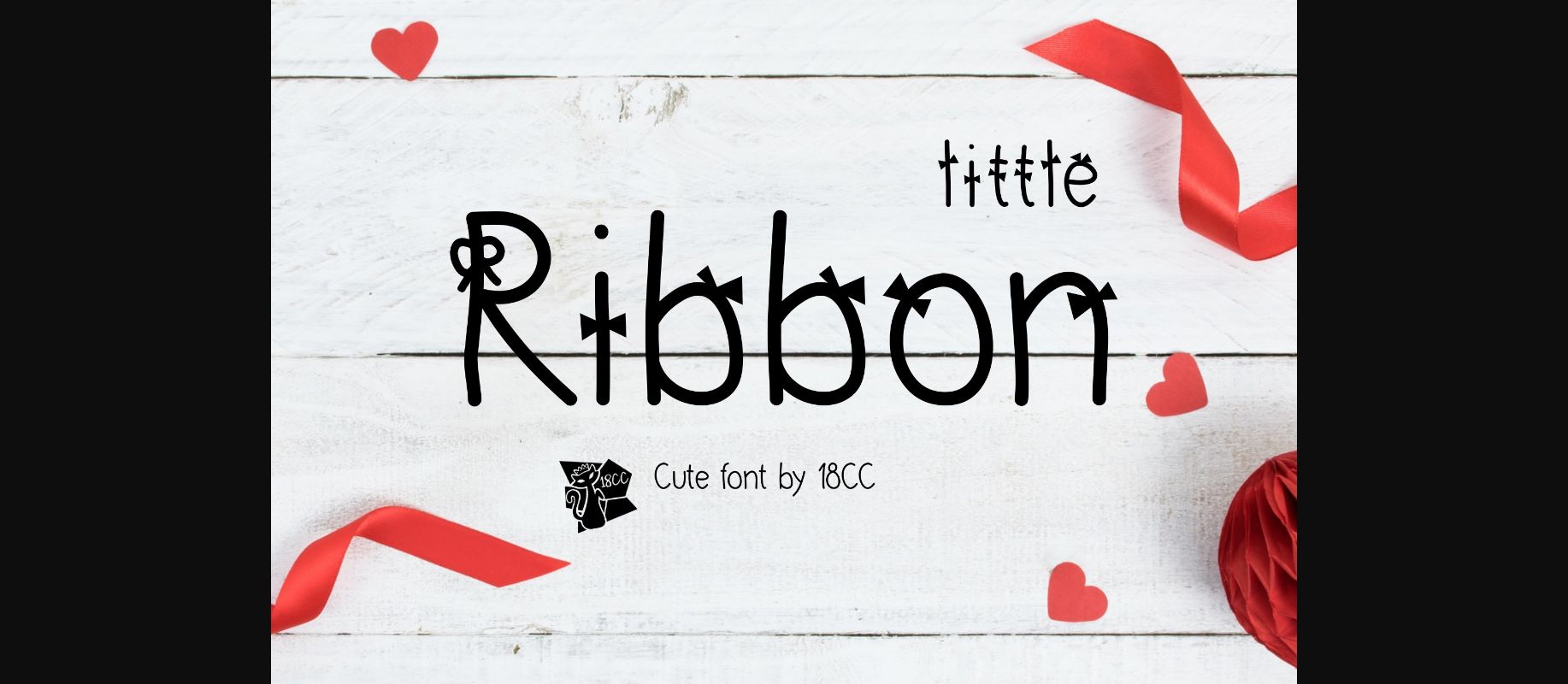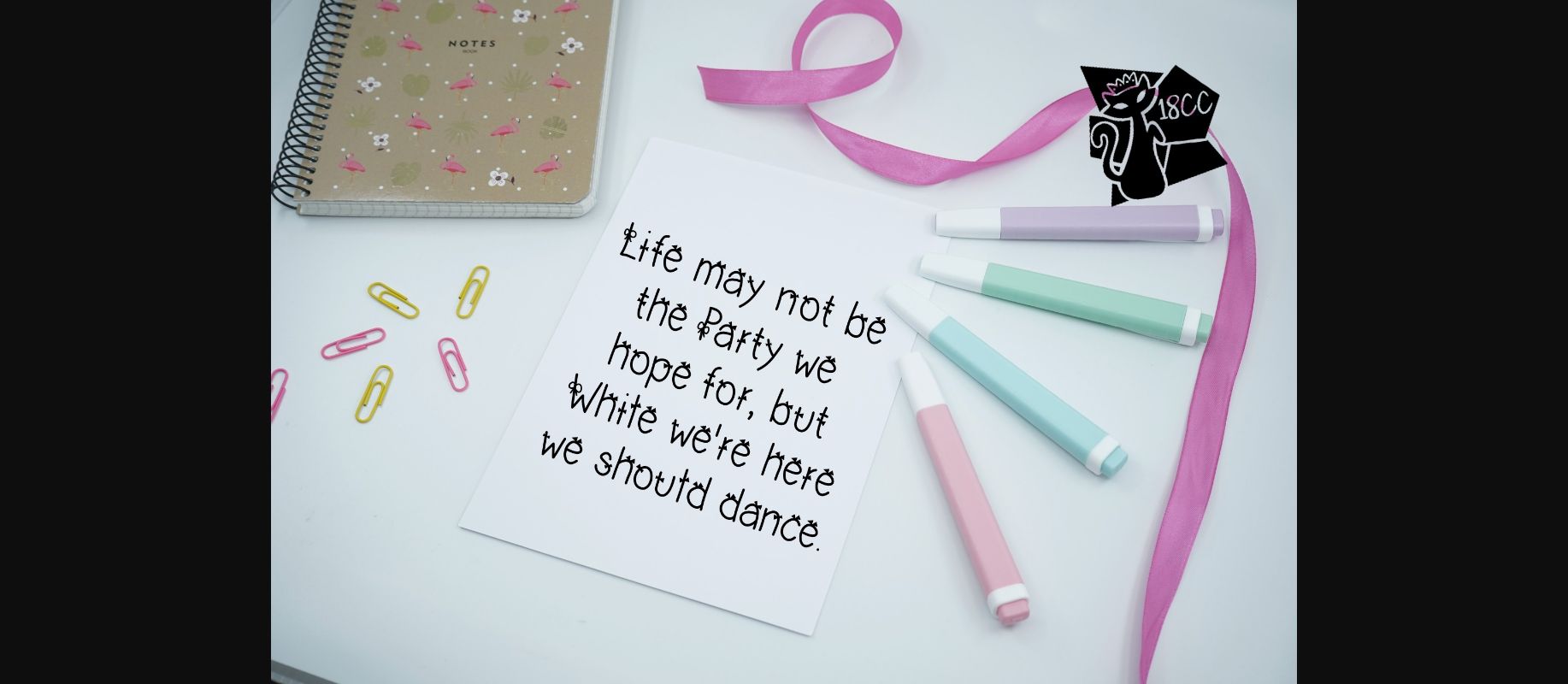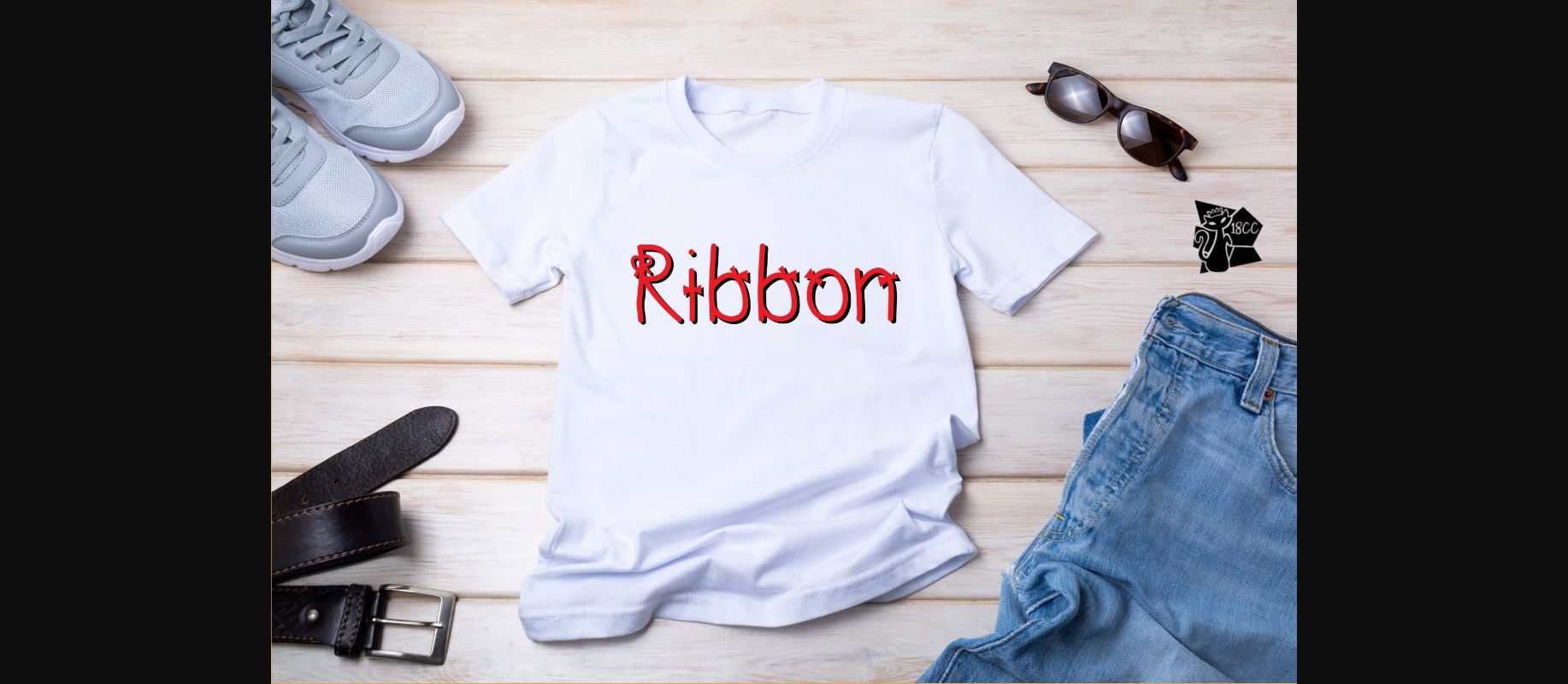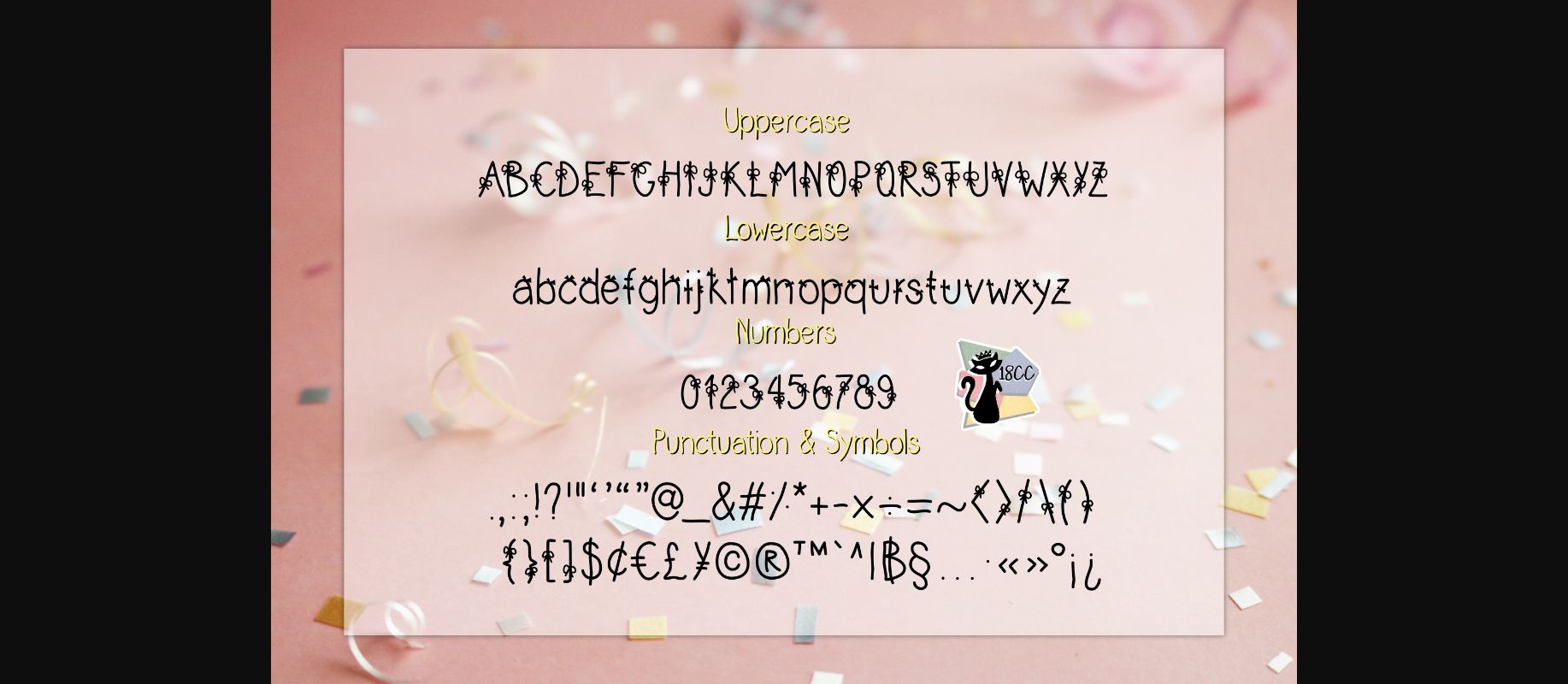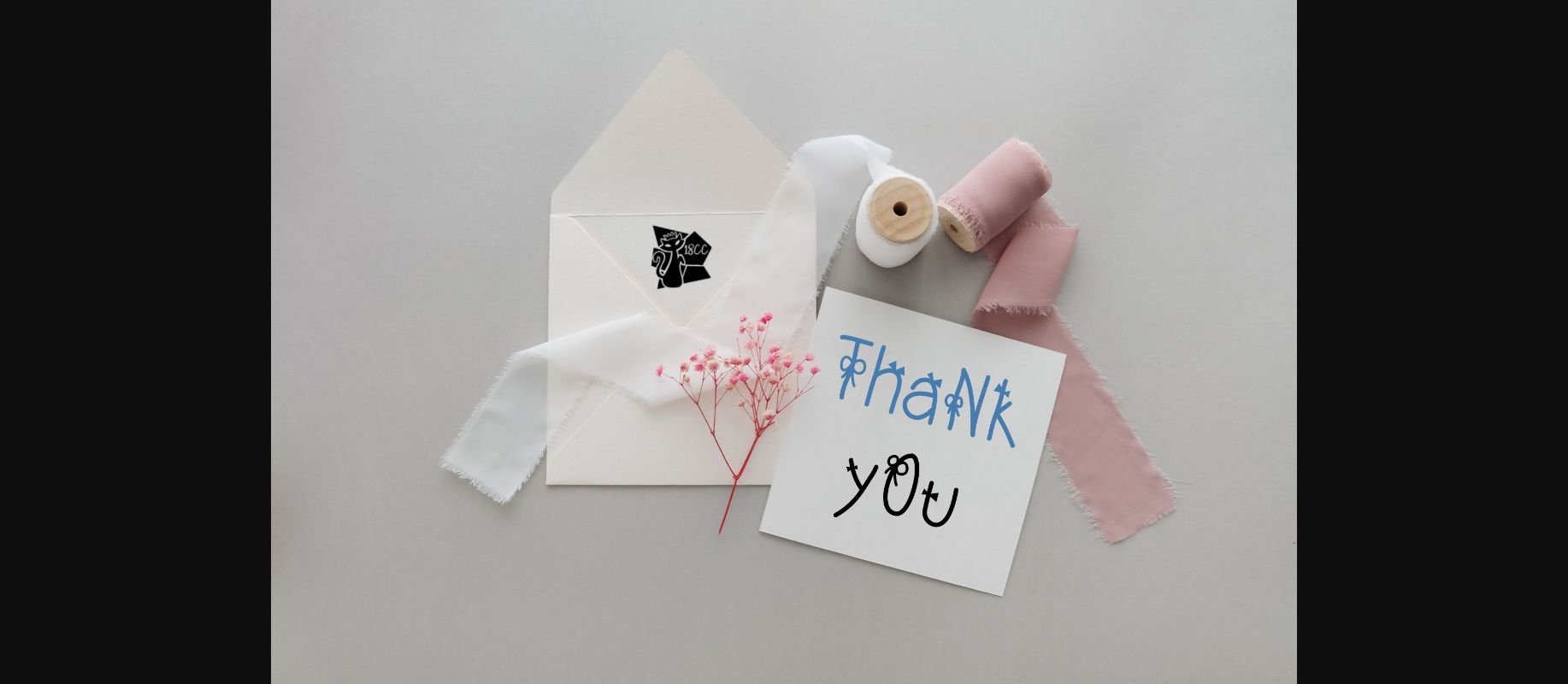
Little Ribbon Font
About Little Ribbon Font
Little Ribbon is a cute decorative font. This font is the perfect fit for all of your logos, branding, social media, crafty DIY projects, and much more!